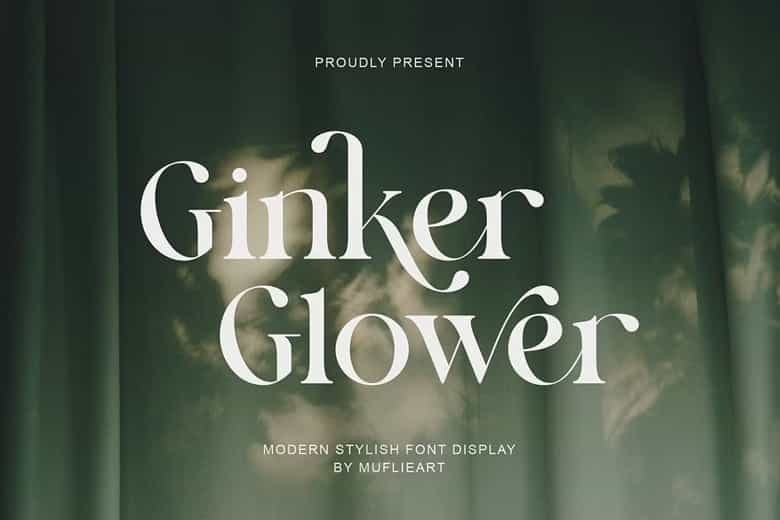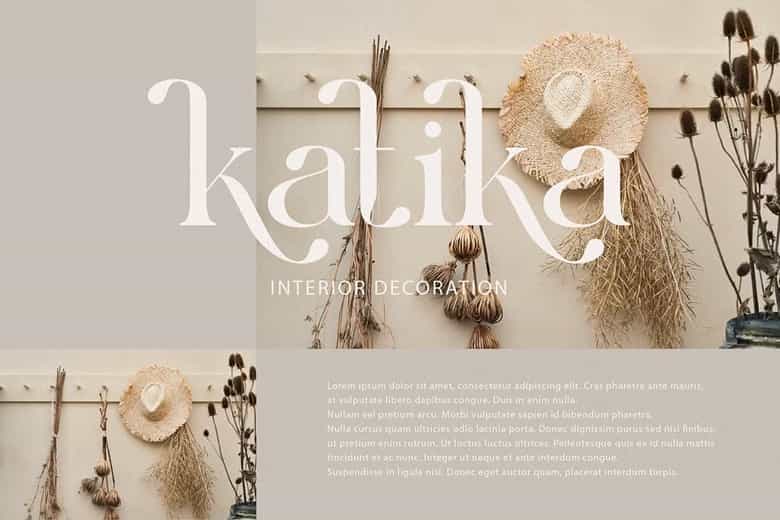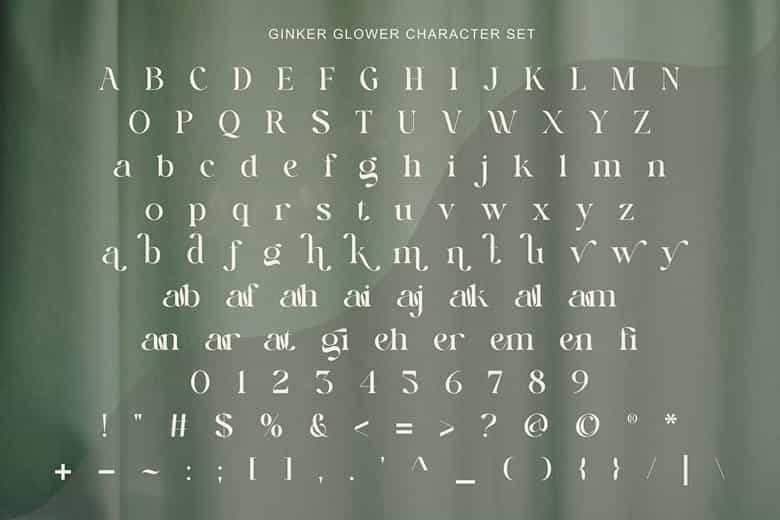
Ginker Glower is a fresh, clean modern serif font. Thanks to its clean cut design, Ginker Glower is ready to provide your projects like websites, modern logos, branding identities, social media quotes, wedding invitations, magazines and etc. a luxurious, classy and clean look.